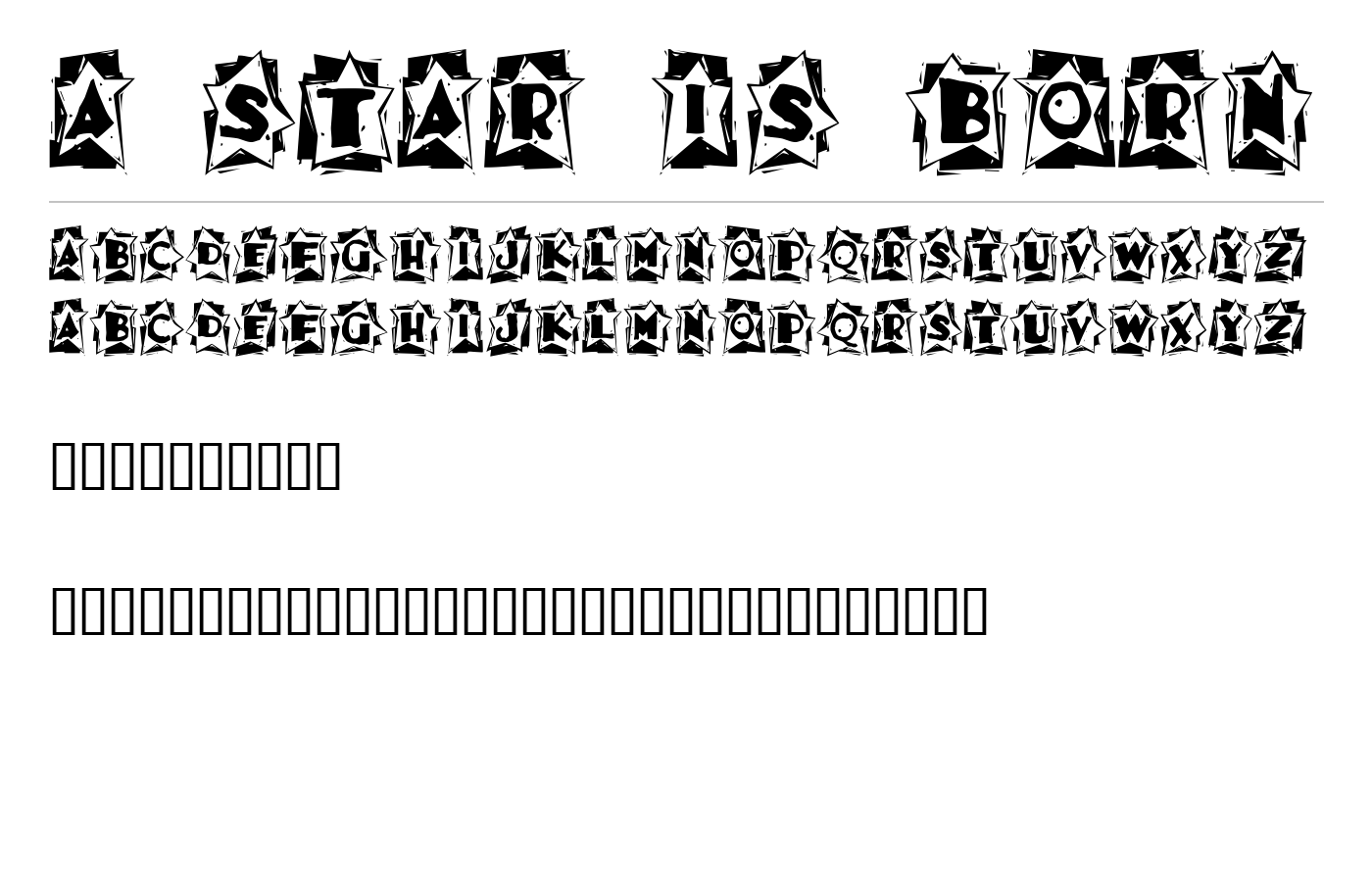
A Star is Born is a bold and playful display font characterized by uppercase letters enclosed in irregular, star-shaped frames that create a dynamic, eye-catching effect. Its quirky, hand-drawn style with sharp angles and high contrast makes it perfect for fun, creative projects such as posters, party invitations, or branding that wants to convey energy and a sense of celebration. This font stands out best in large sizes where its unique shapes can shine and add a lively, festive atmosphere.
A Star is Born Font